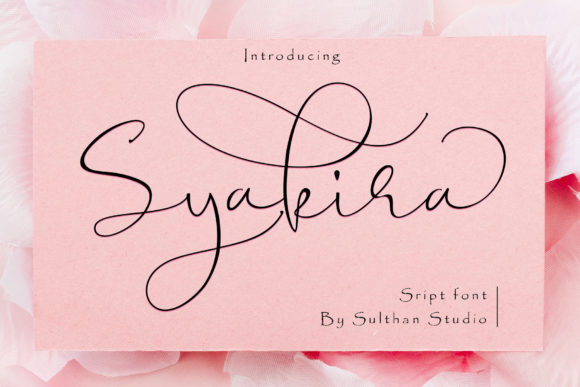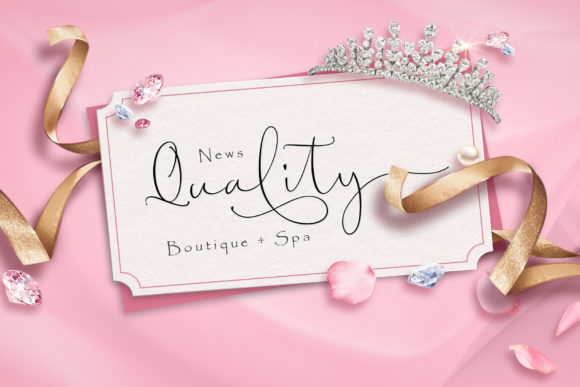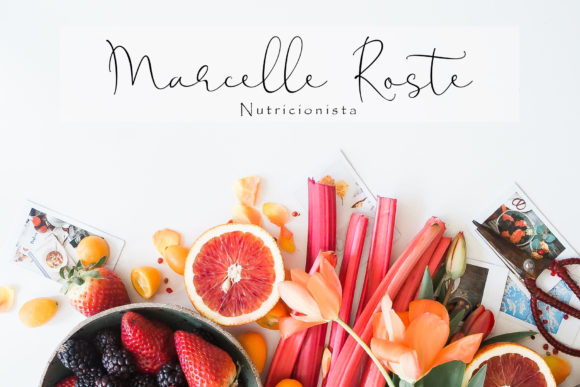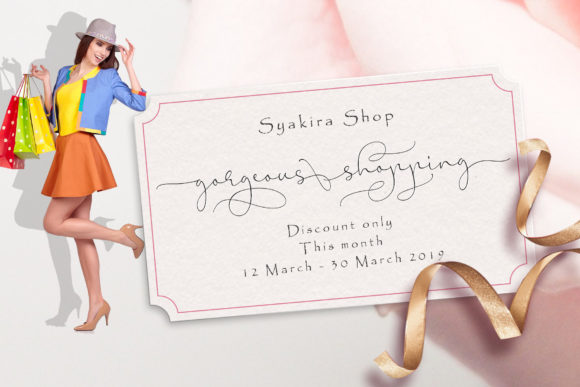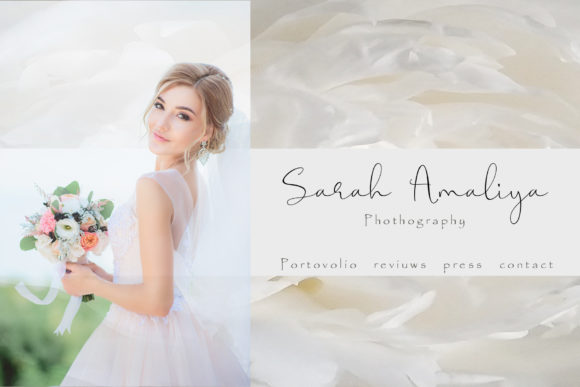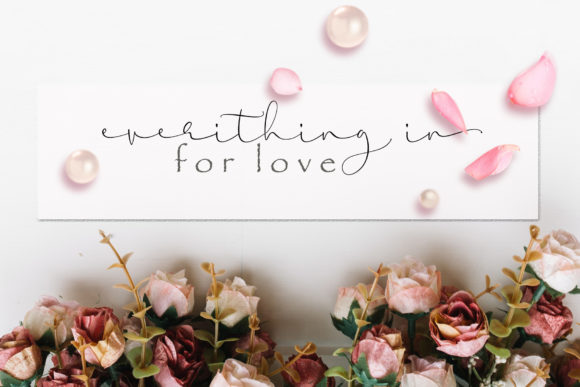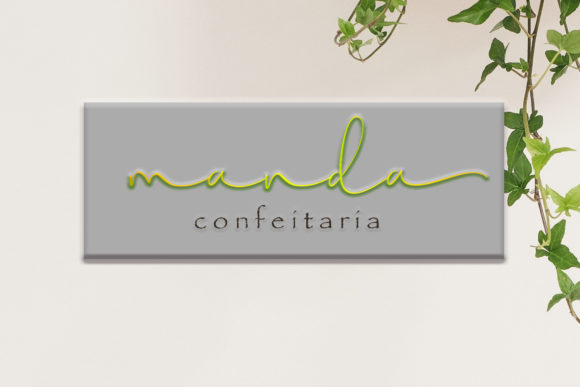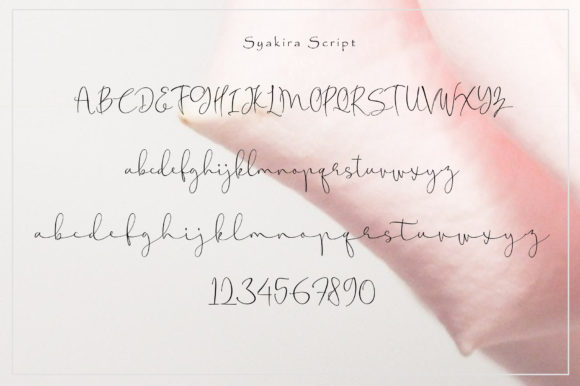
Syakira Script Font
The Syakira is a romantic calligraphy script. It comes as a single file packed full with cute and great features.
It’s perfect for adding a fresh and fabulous style to your wedding stationary, invitations, digital lettering, headings, logos, t-shirts, letterheads, signage’s and much more!.